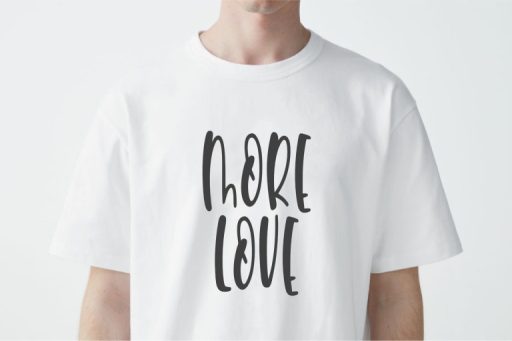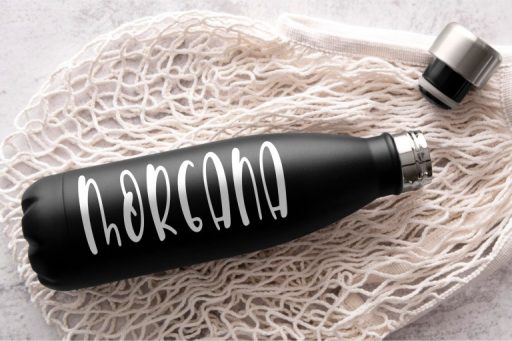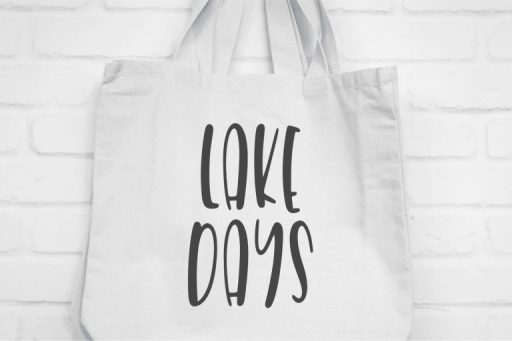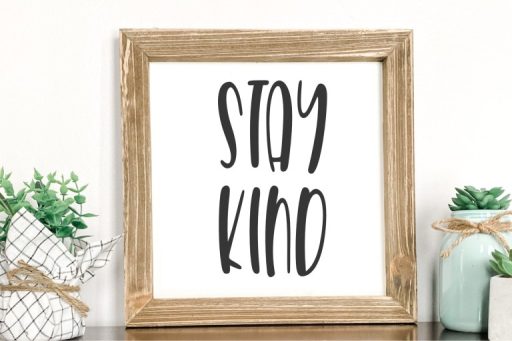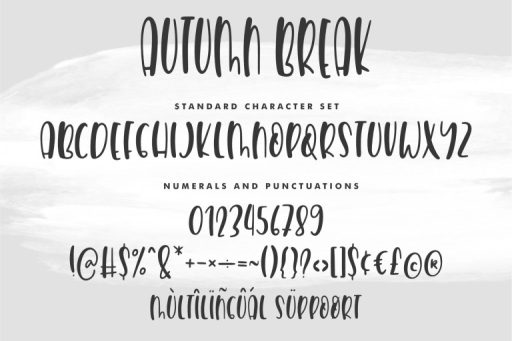
Autumn Break Font
Autumn Break – Handwriting Font
Introducing the ‘Autumn Break’ Handwriting Font – a breath of crisp fall air for your designs! Whether you’re crafting on Canva or diving into Cricut projects, this font brings the cozy charm of autumn to every creation. Embrace the season’s warmth and let your imagination run free with the versatile ‘Autumn Break’ font. Elevate your designs with a touch of handwritten elegance!